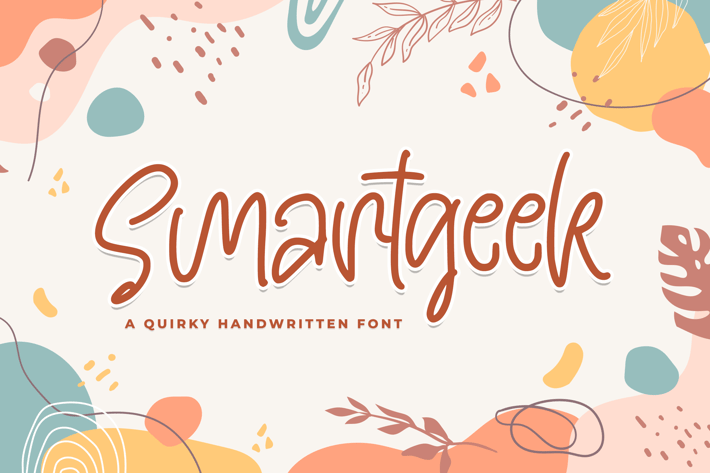
Smartgeek - Playful Font
Smartgeek is a display font which embodies fun, quirkiness and authenticity. This enchanting display font will turn any creative idea into a true standout. Get inspired by its childlike playfulness, and use it to brighten up any kids and school project!